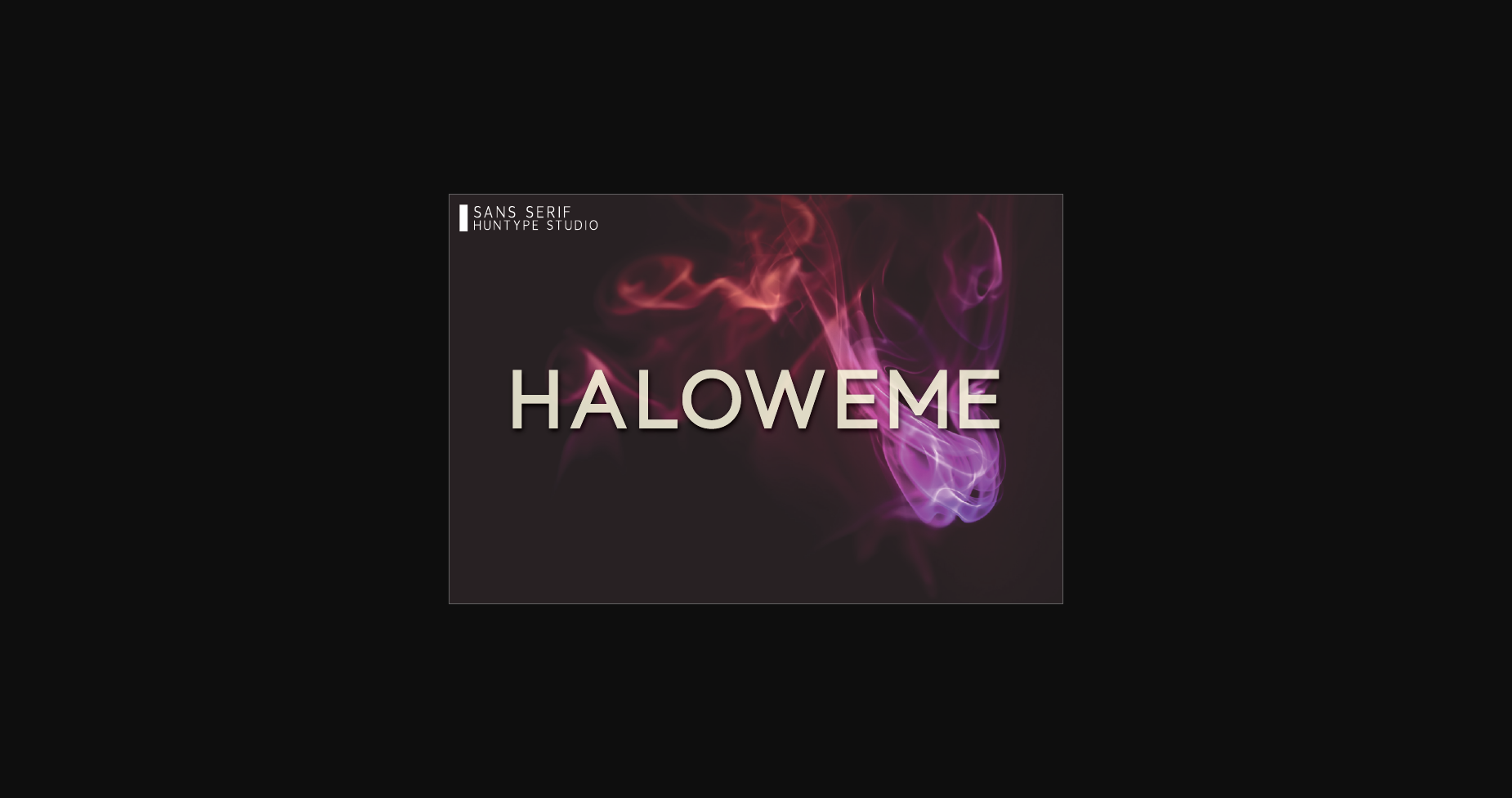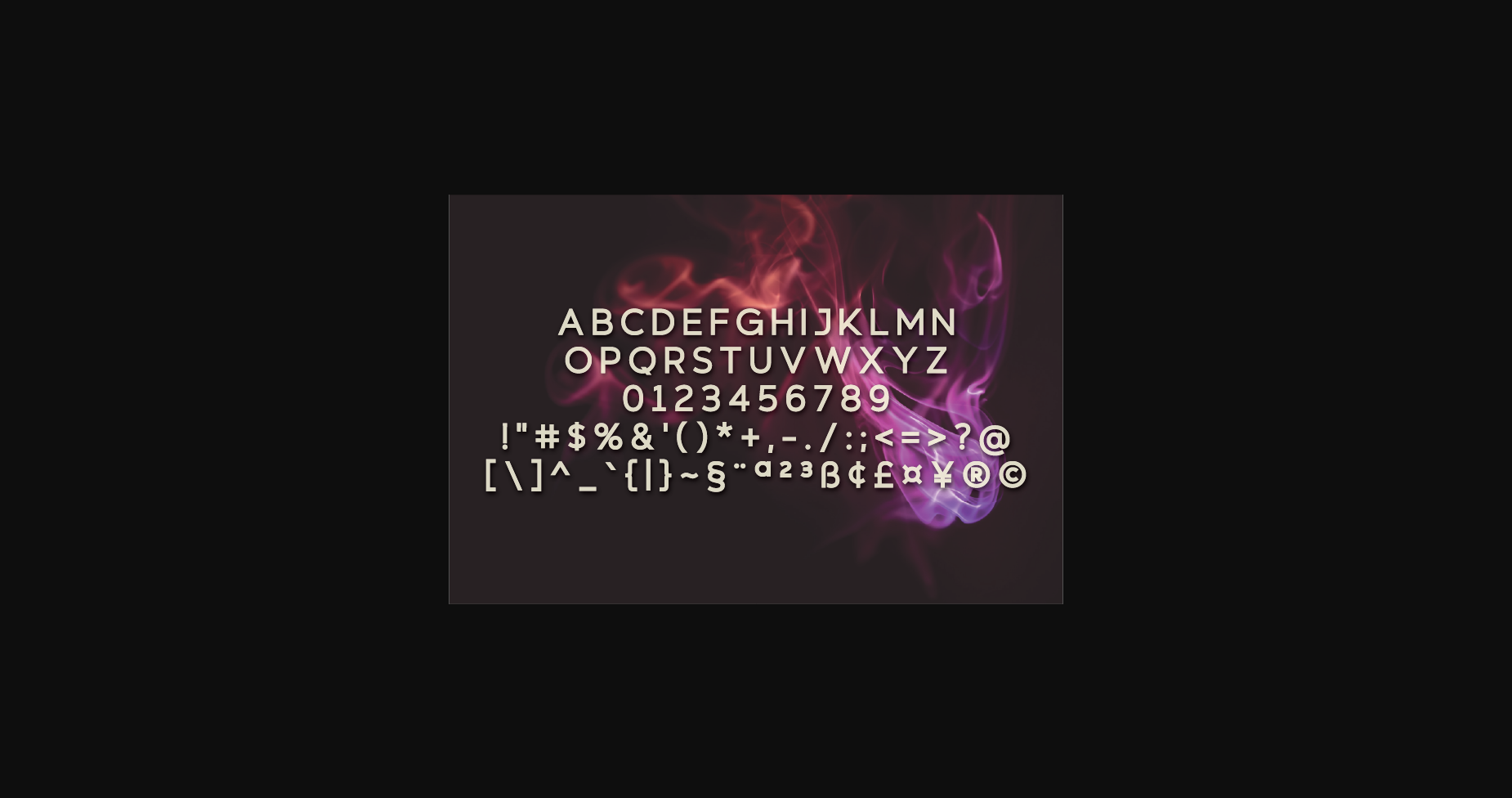
About Haloweme Font
Haloweme is a minimal and neat sans serif font. It can easily be matched to an incredibly large set of projects, so add it to your creative ideas and notice how it makes them stand out!